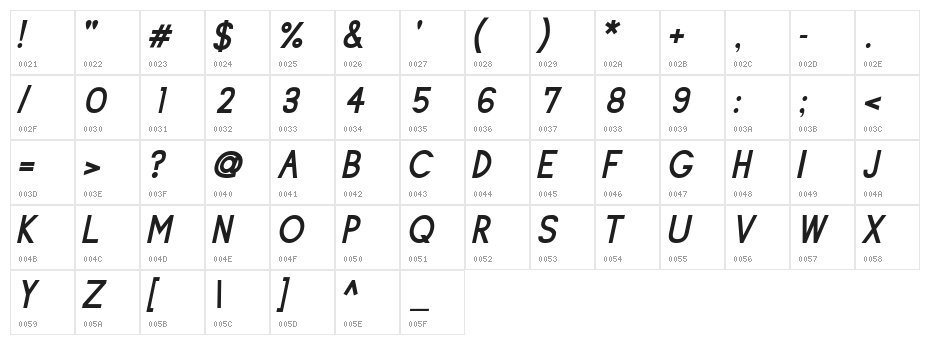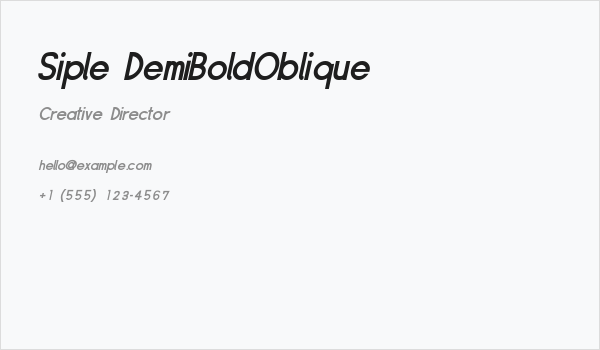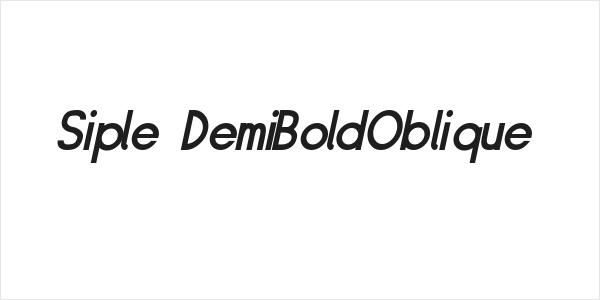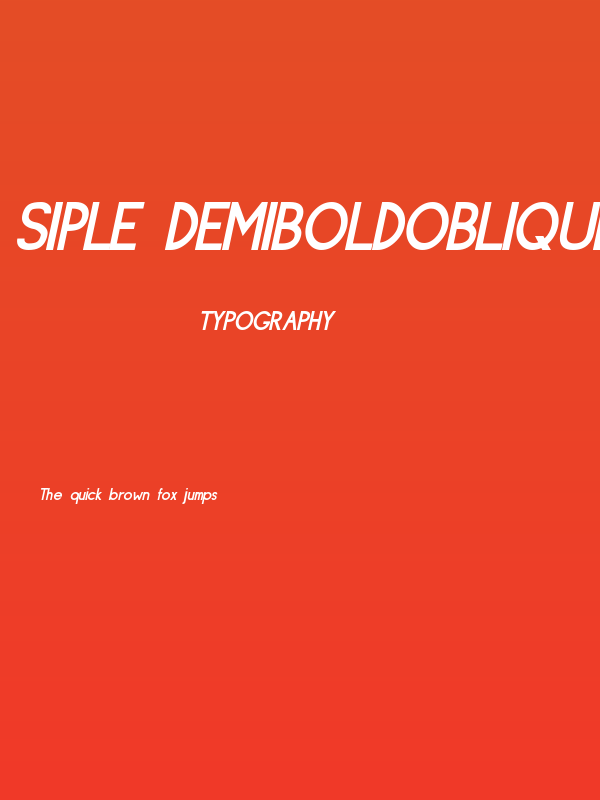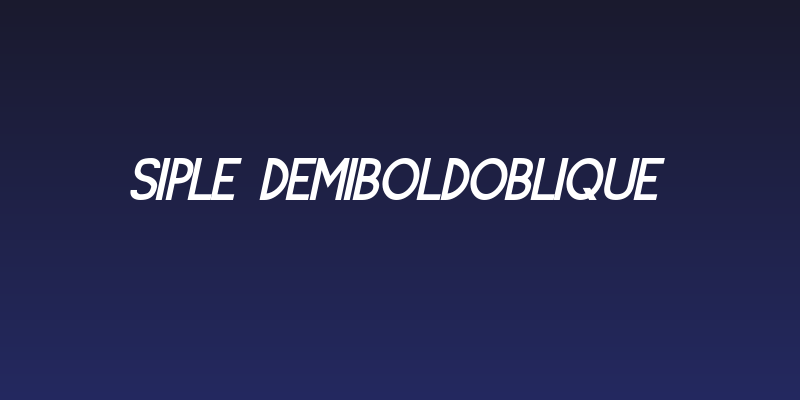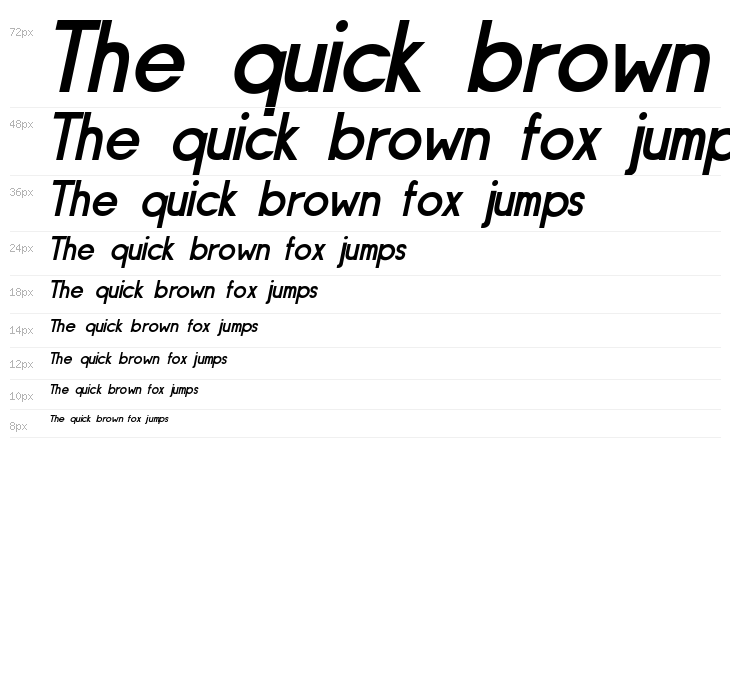
Siple DemiBoldOblique Font
Siple DemiBoldOblique Description
This font features a dynamic and energetic style with a slanted, oblique orientation that adds a sense of motion and modernity. The characters are bold and well-defined, offering a strong visual impact. The uppercase and lowercase letters maintain a consistent weight, providing a harmonious look across different text sizes. The numerals are clear and distinct, ensuring readability. Special characters are included, enhancing the font's versatility for various applications. Its smooth curves and clean lines make it suitable for contemporary designs.
| Use Case | Headlines, Logos, Advertising |
| Proposed Projects | Ideal for branding, advertising, headlines, and digital media projects where a modern and impactful look is desired. |